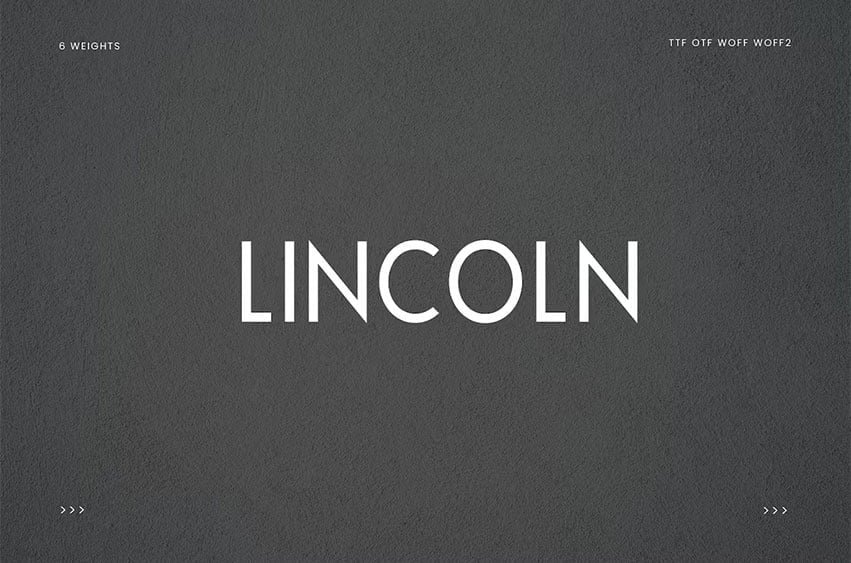
Lincoln Font is a Display Typeface. It has a dependable and uncompromising style, with controlled letterforms and modern touches. It looks amazing in logos, magazines, and movies. Lincoln is created with all the tasks of a corporate font and also for the usage in a variety of projects, including branding, logos, titles, headlines, posters, screens, display, digital ads, and everything else.
Lincoln Font Preview